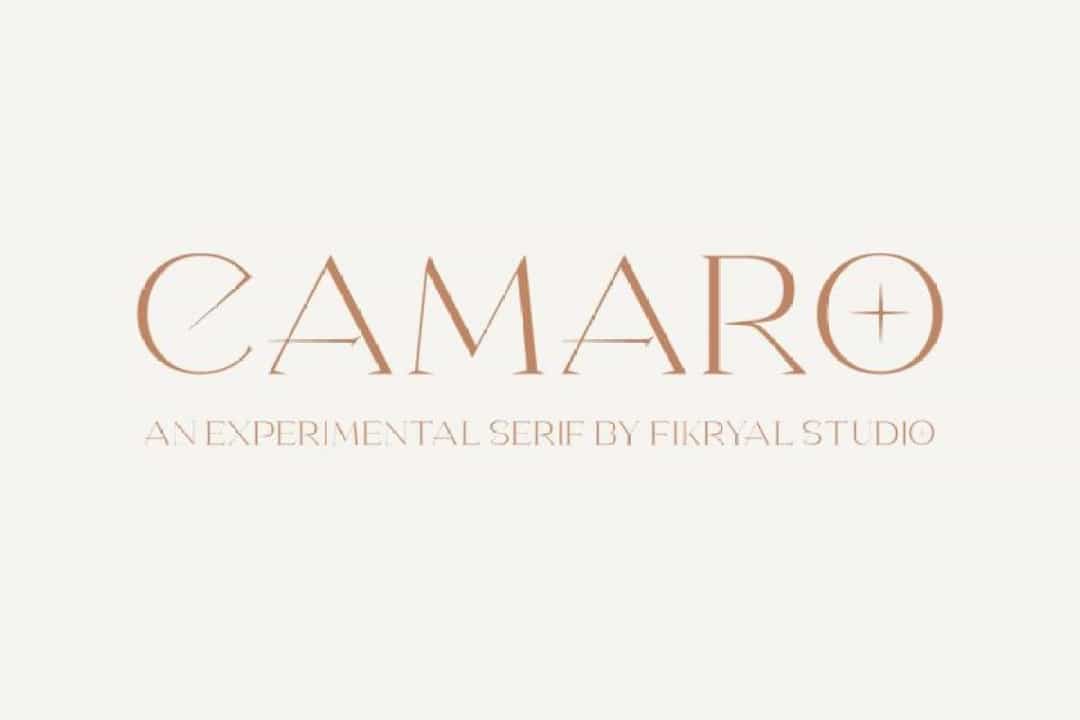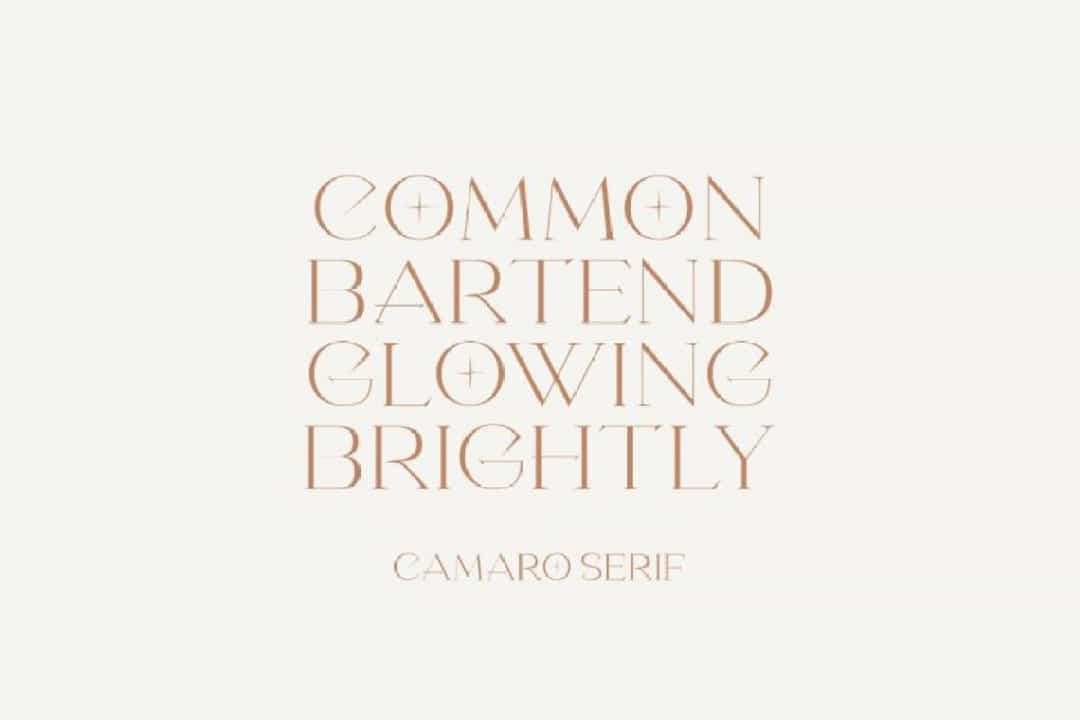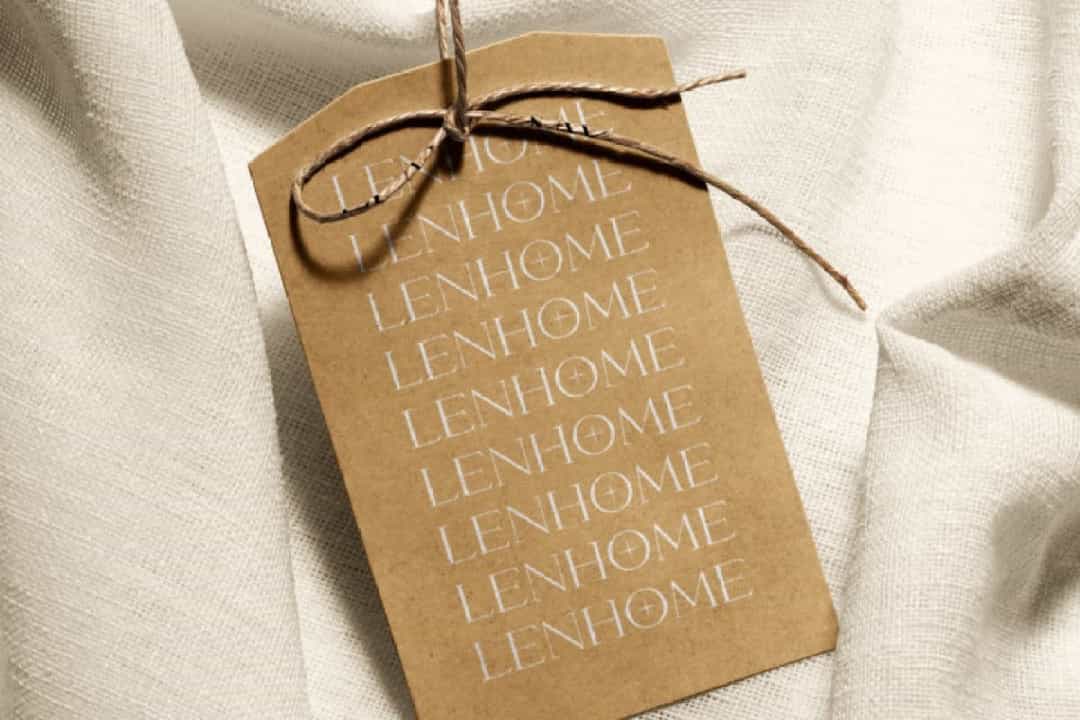
Camaro, It is an innovative online font designed to push the limits of individuality. Crafted with high-end serif typeface, its purpose was to leave an unmistakably striking and memorable impression upon readers – every letter carefully constructed in order to foster an inviting and welcoming ambience.